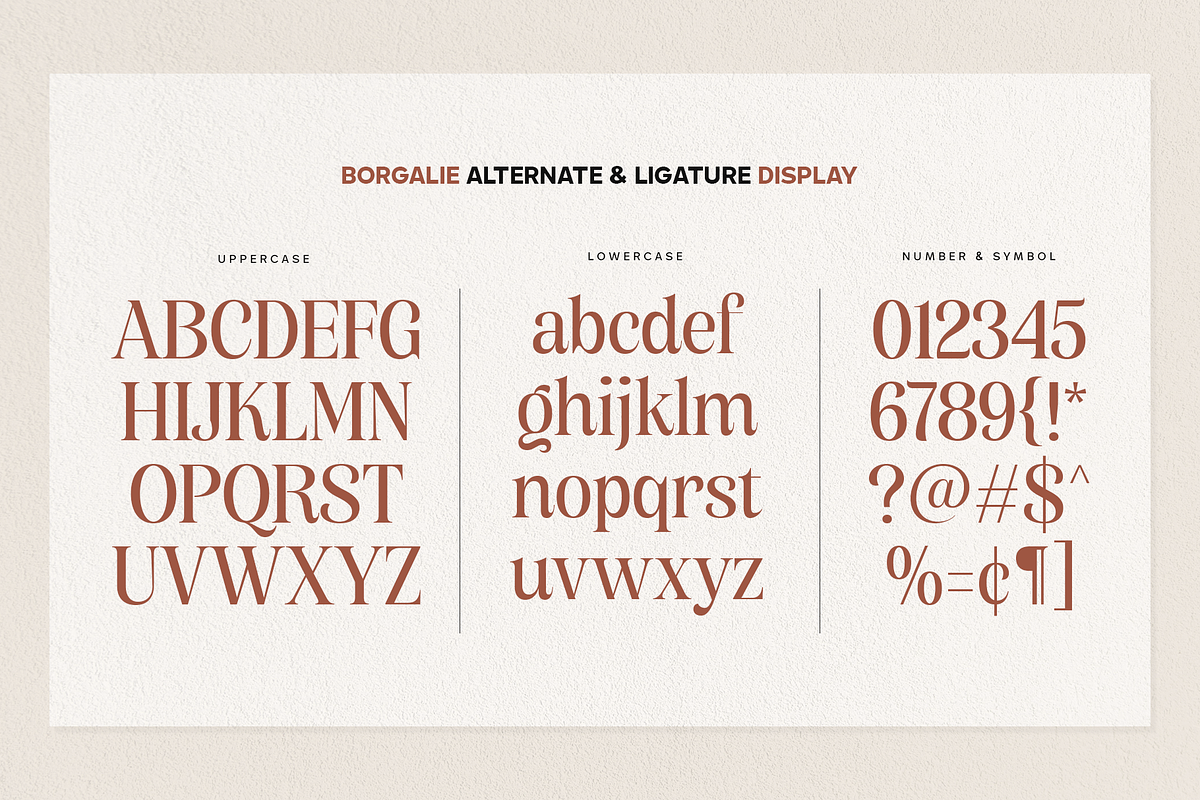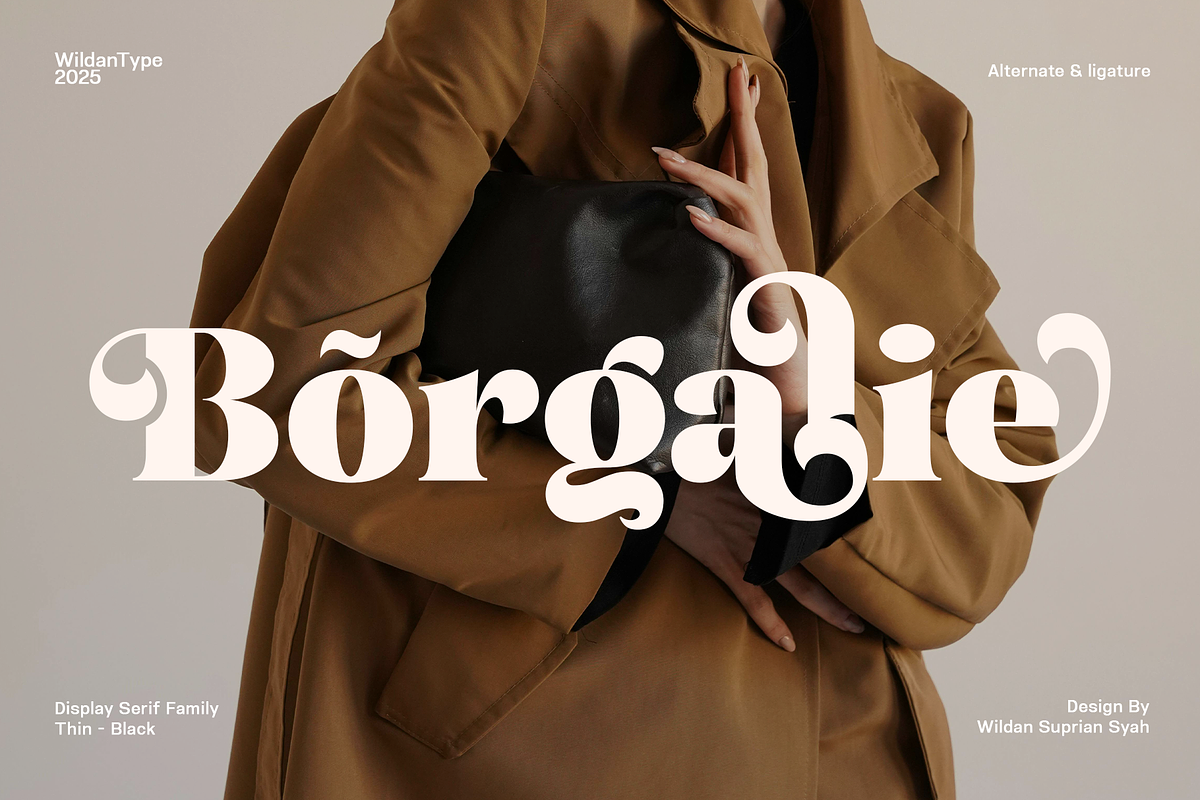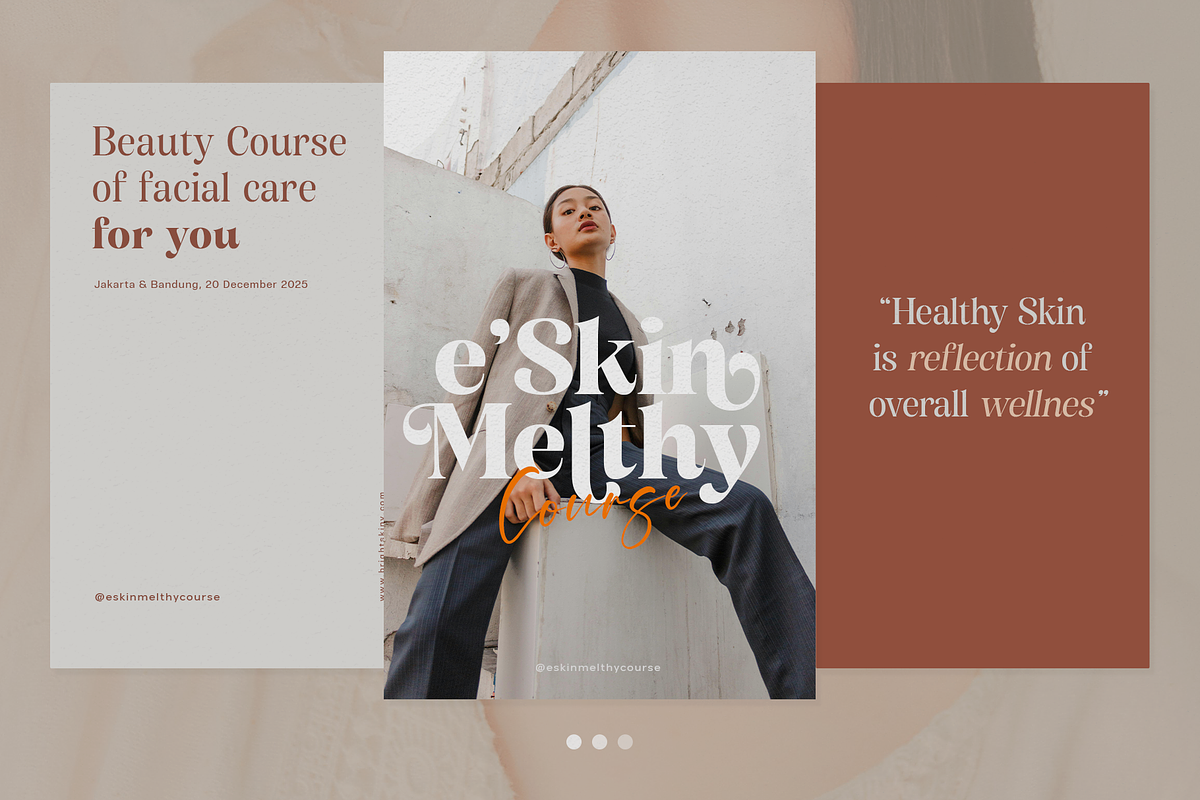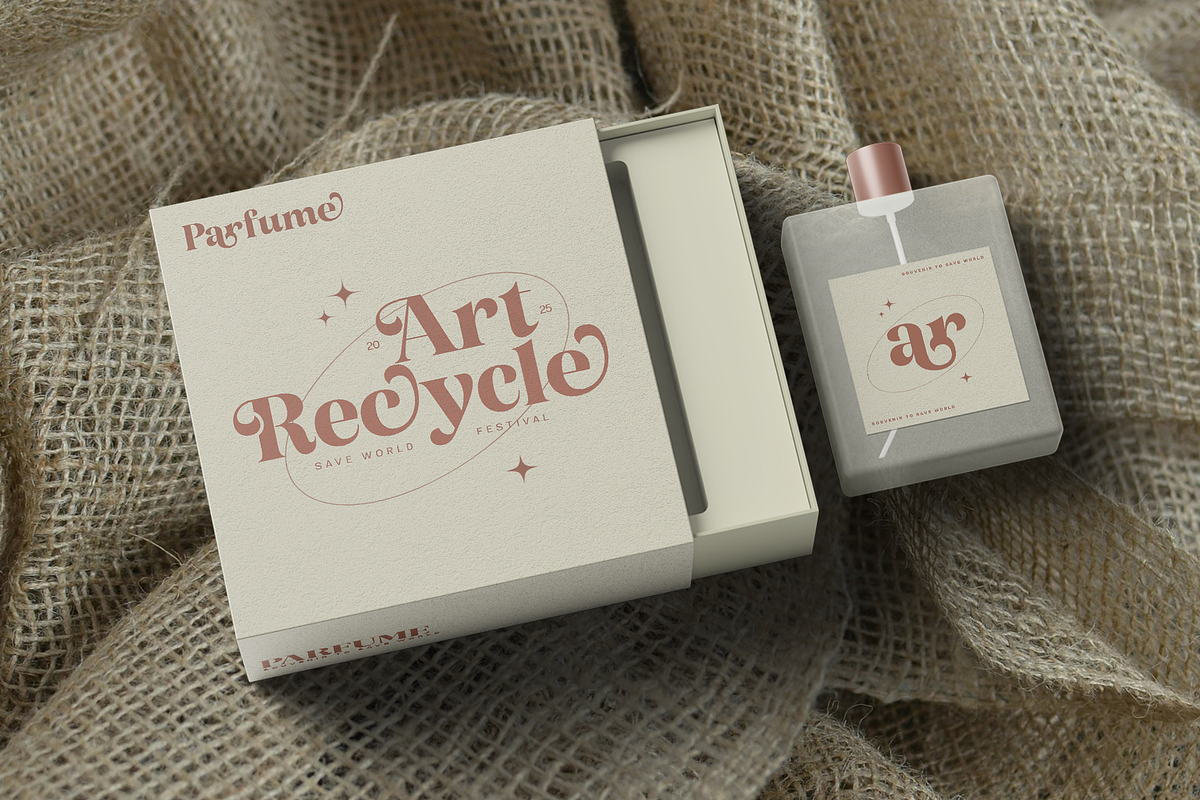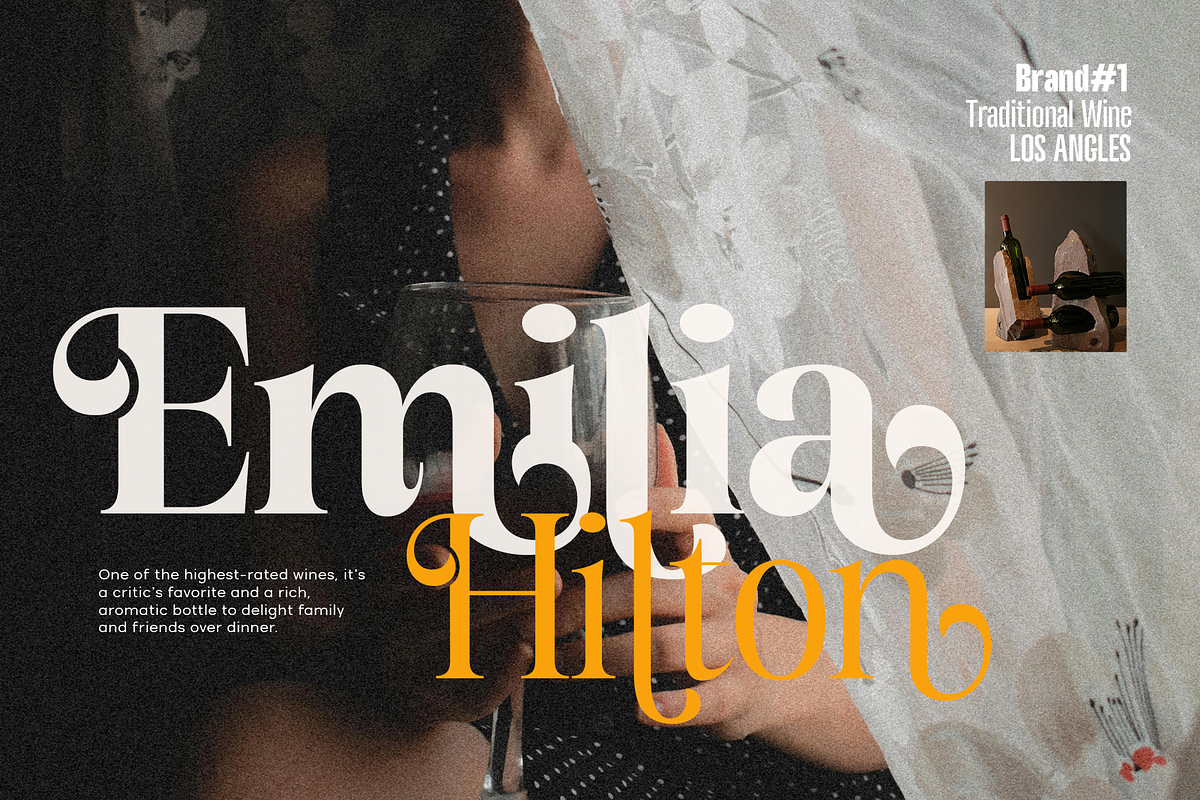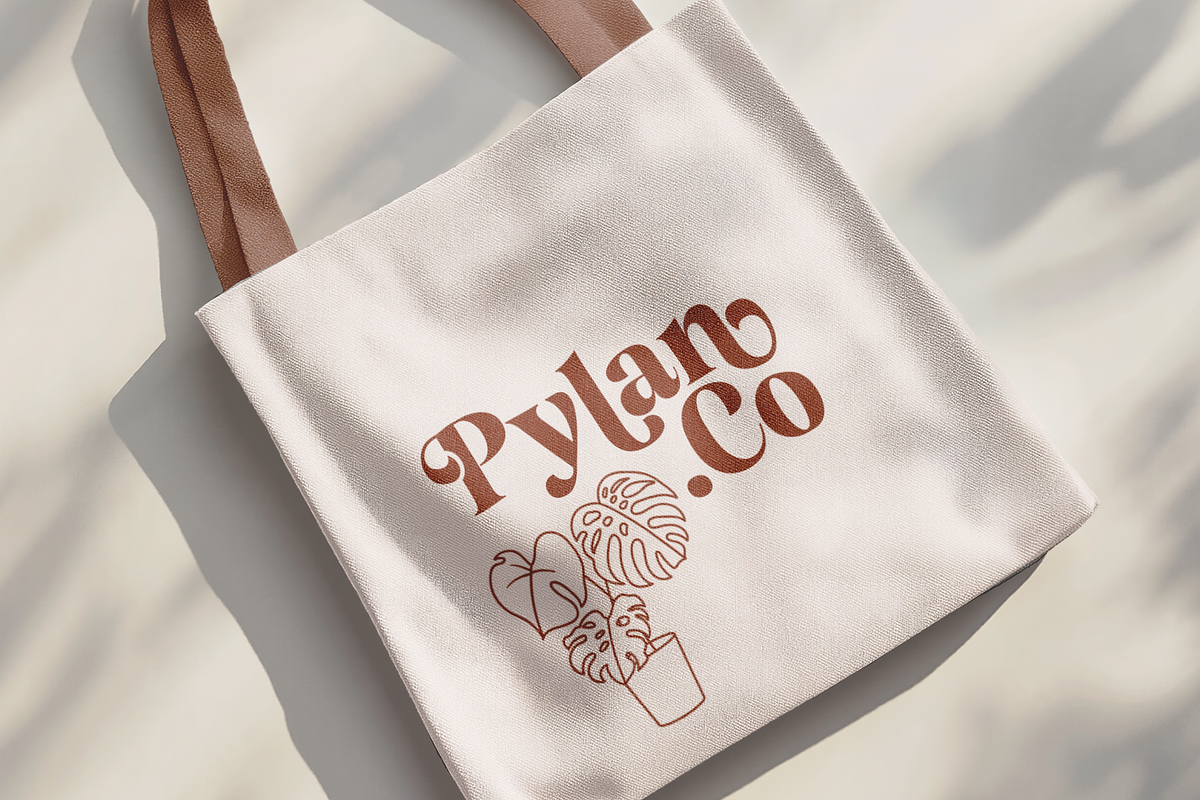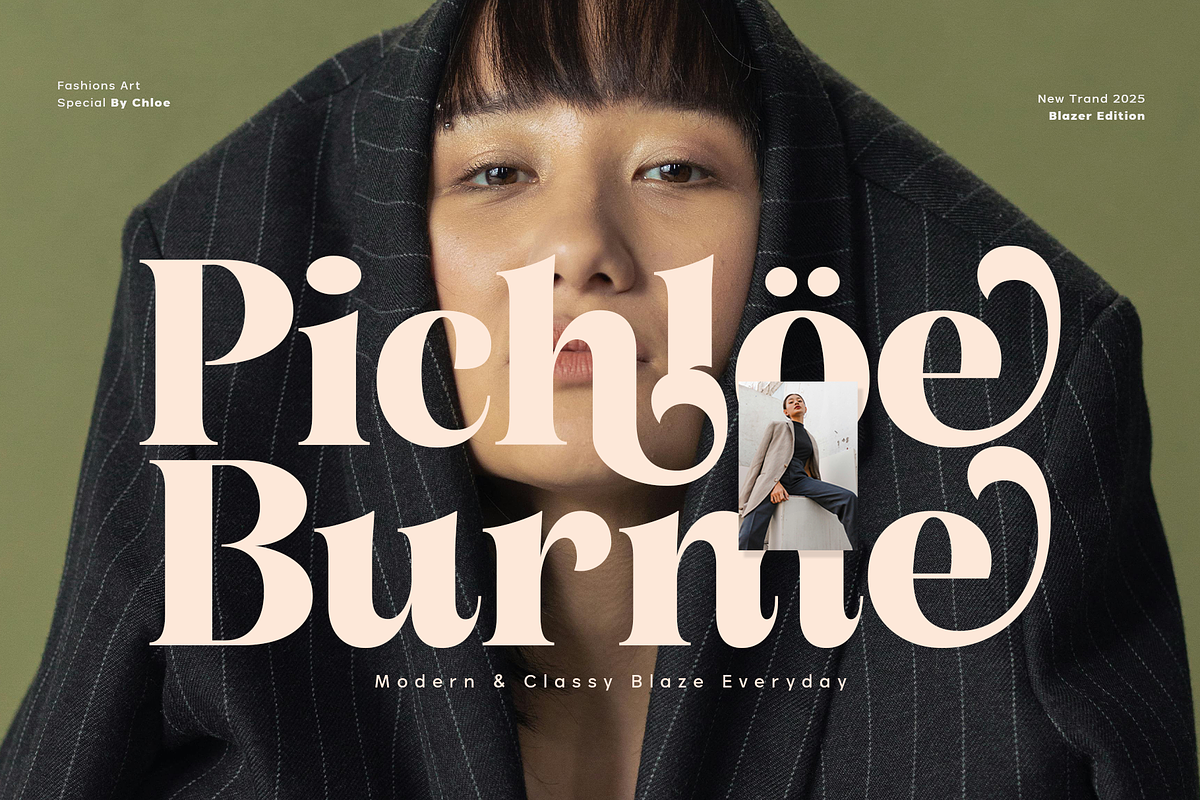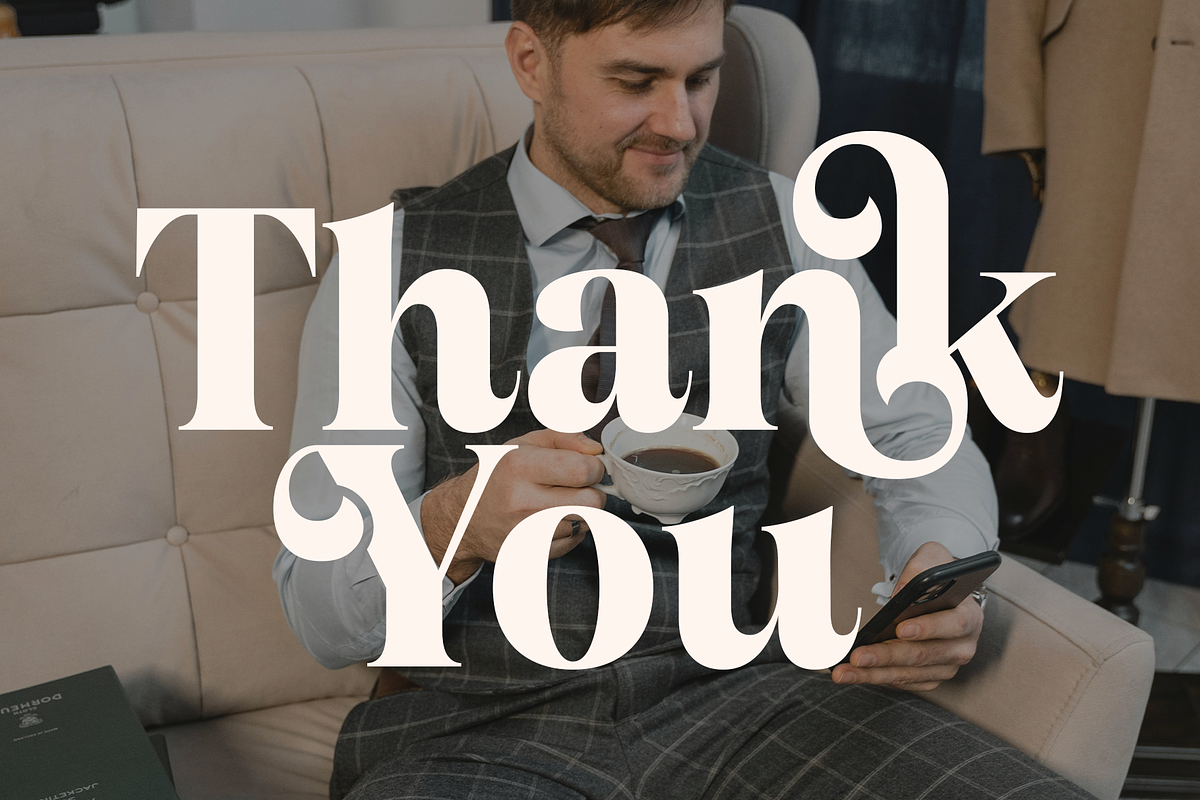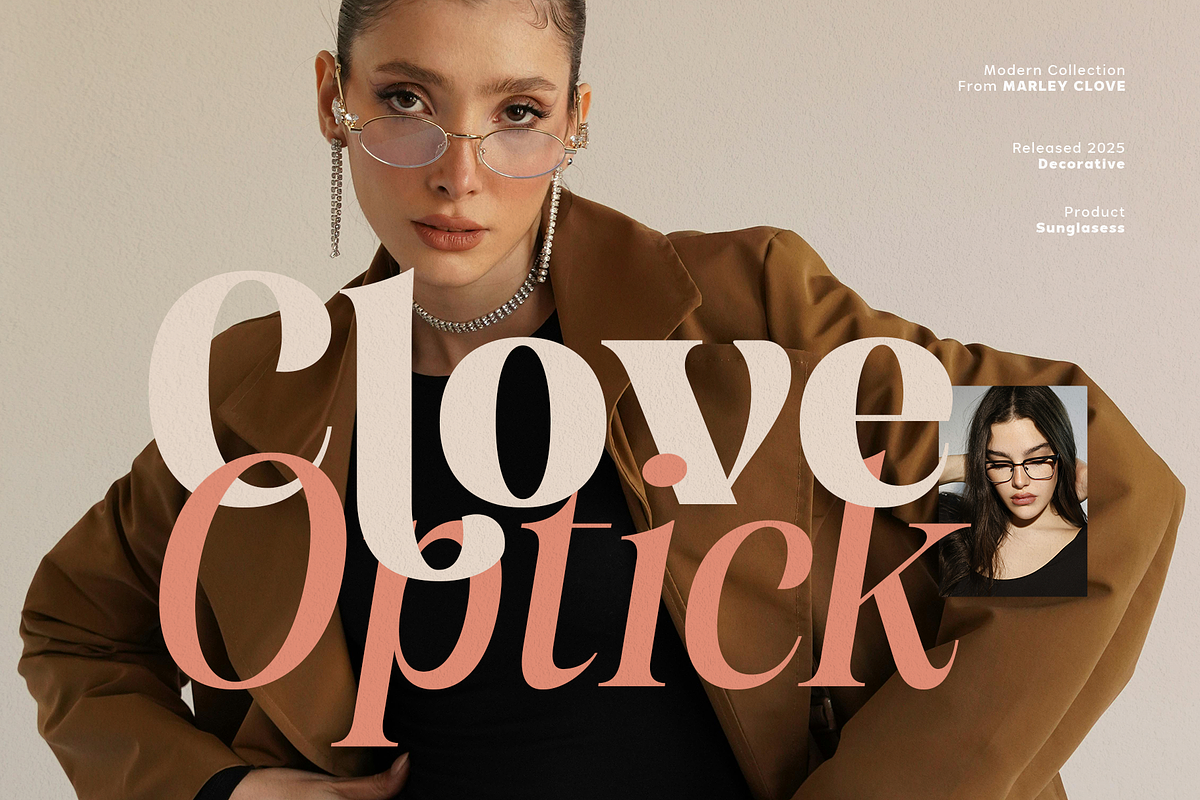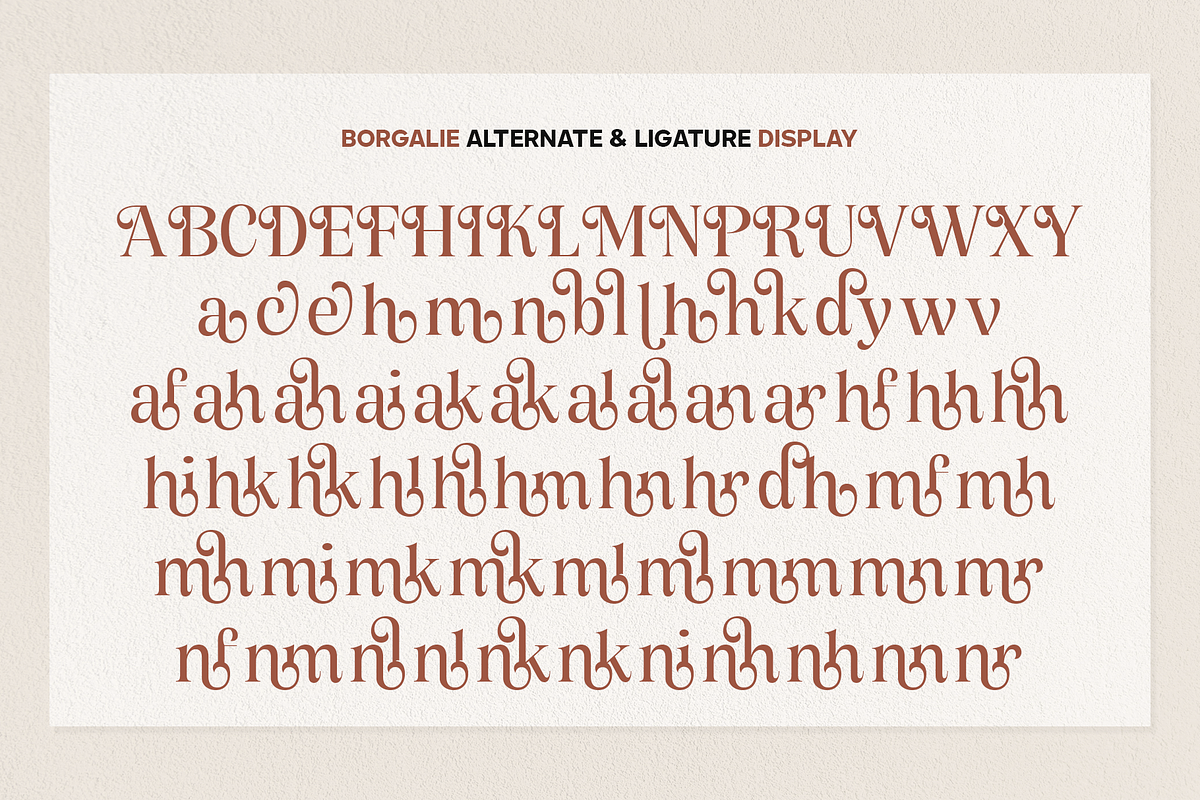
Borgalie
Borgalie is a classic serif typeface with an elegant contemporary touch designed to provide a modern feel. Equipped with beautiful and stylish character alternatives, as well as unique ligatures, this font exudes a classy and graceful impression while still maintaining a modern classic essence.
Borgalie stands out with beautiful details and balanced proportions. It is ideal for designs that require a beautiful, luxurious, yet strong impression.Each character is meticulously crafted to reflect elegance and premium quality, ensuring your designs stand out in any setting.
9 Weights inside (Match with Oblique)
+50 Alternate and Ligature
Multilingual support.